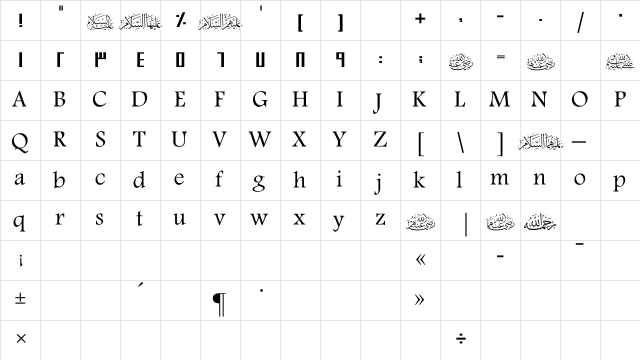
SC_HANI REGULAR
Design Context for SC_HANI Typeface
SC_HANI offers clean, dependable letterforms without strong stylistic allegiance, making it a practical choice for designers who need flexibility.
Pro Tip: Pair SC_HANI with a font of contrasting weight or personality to build a more expressive typographic hierarchy.